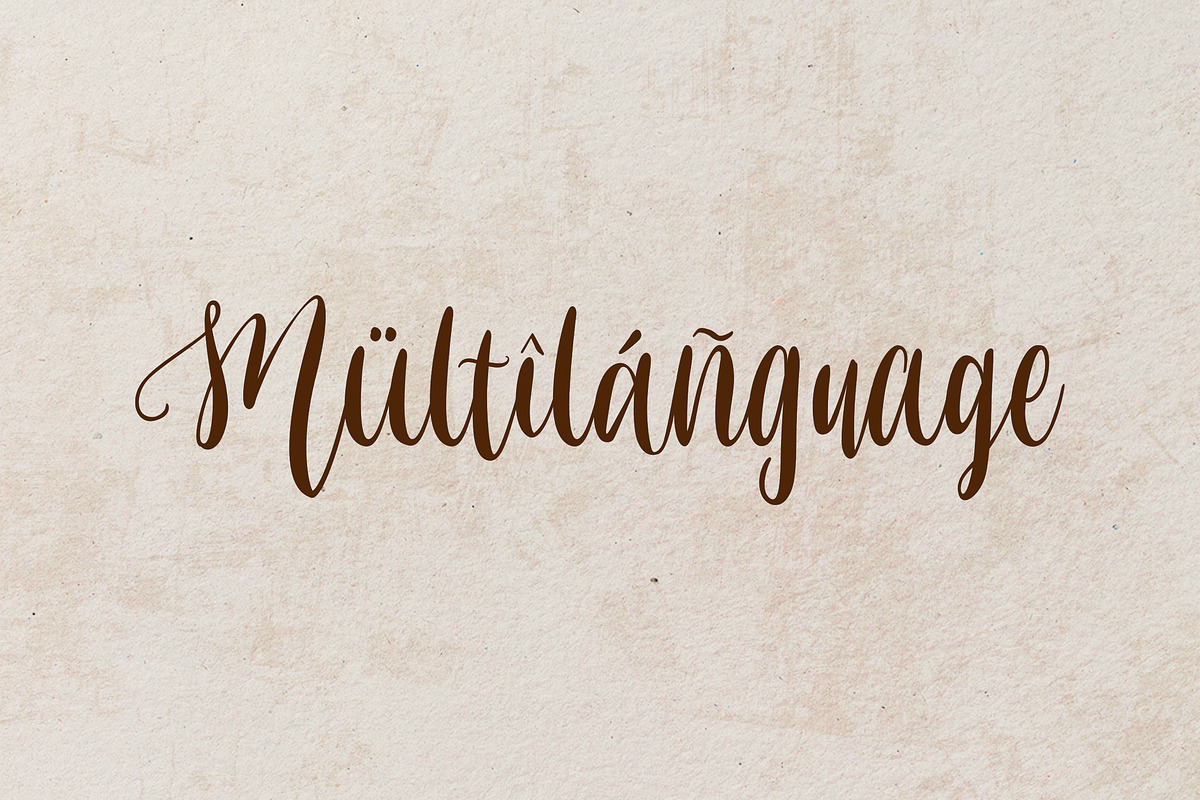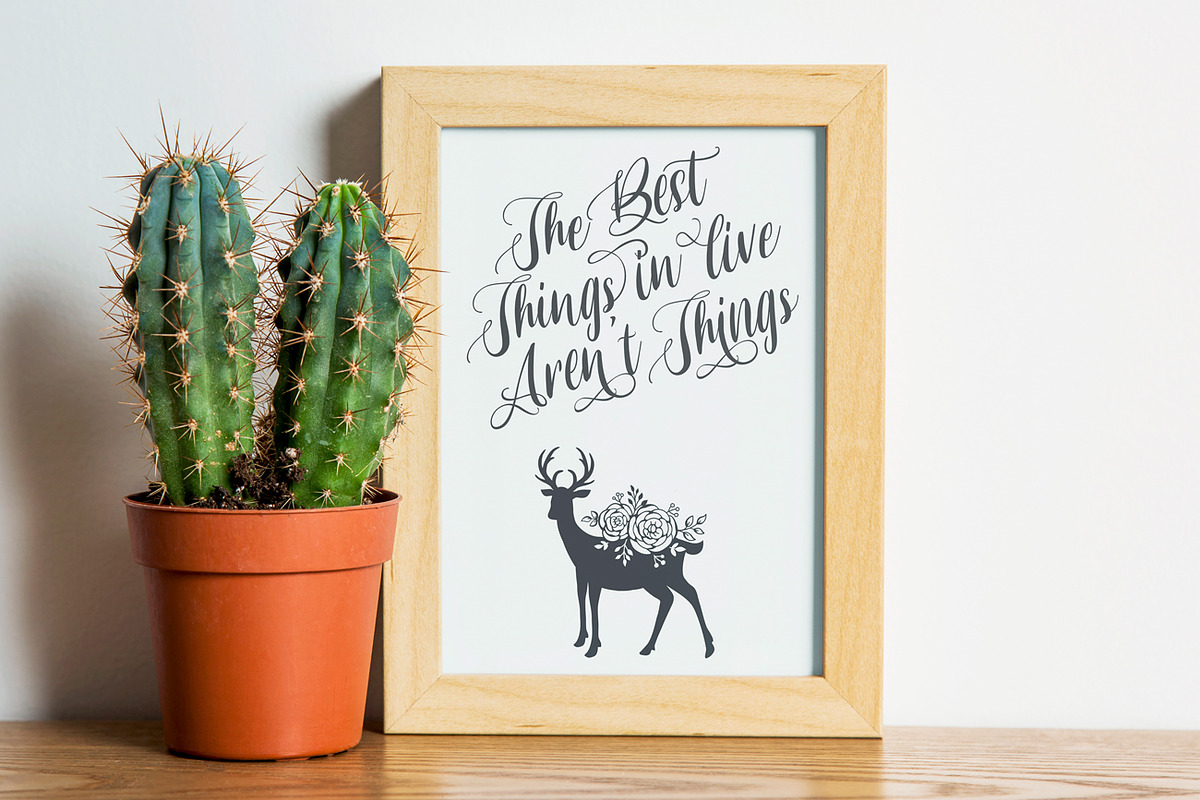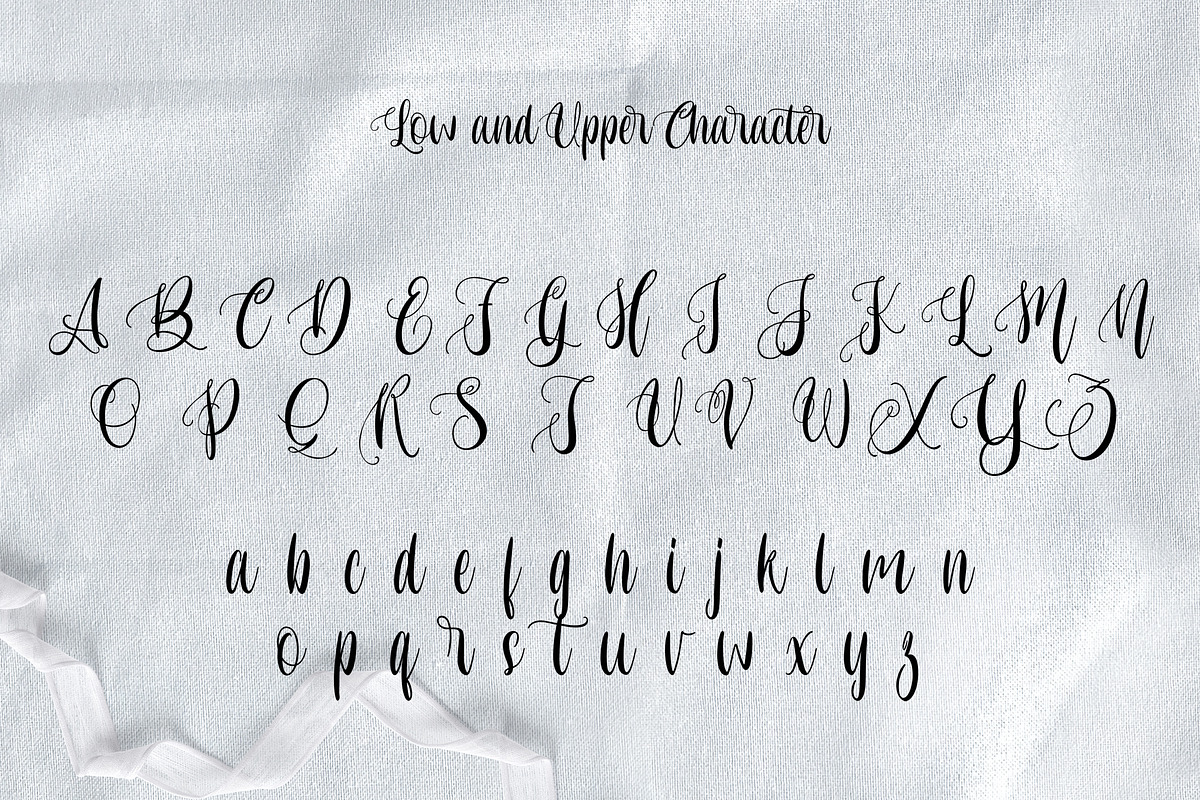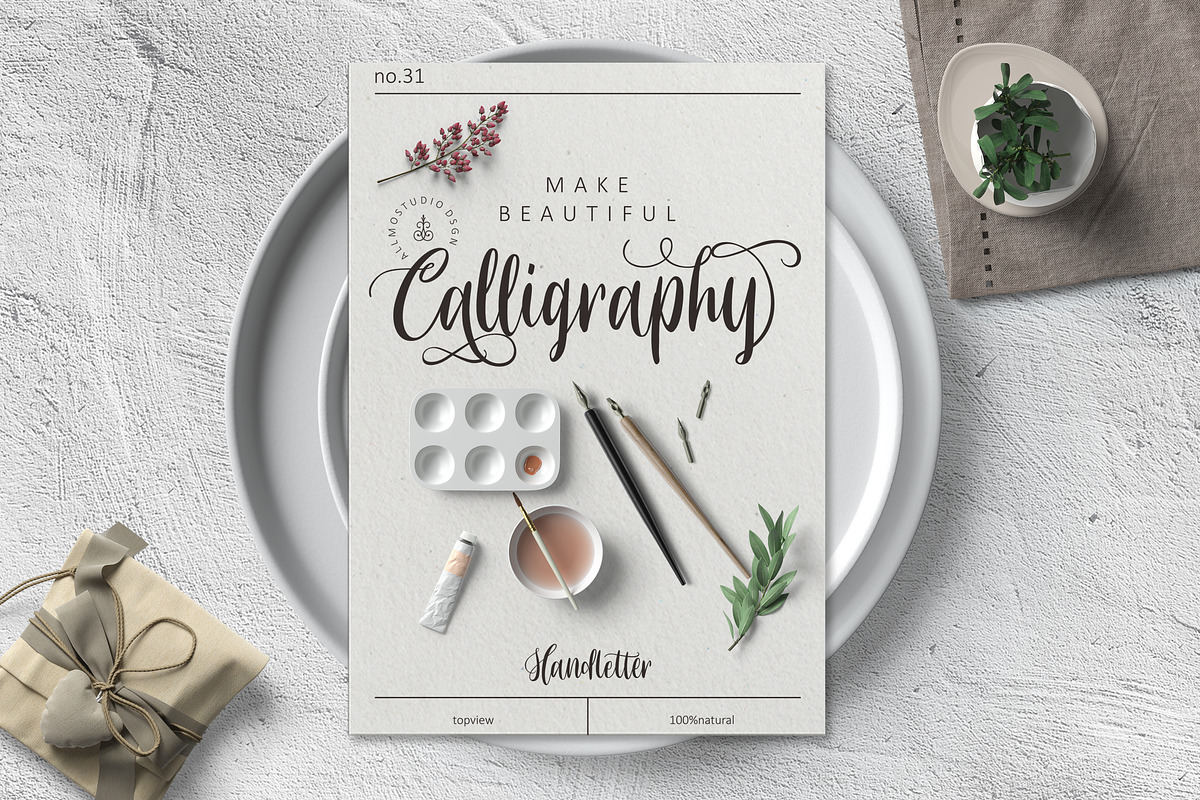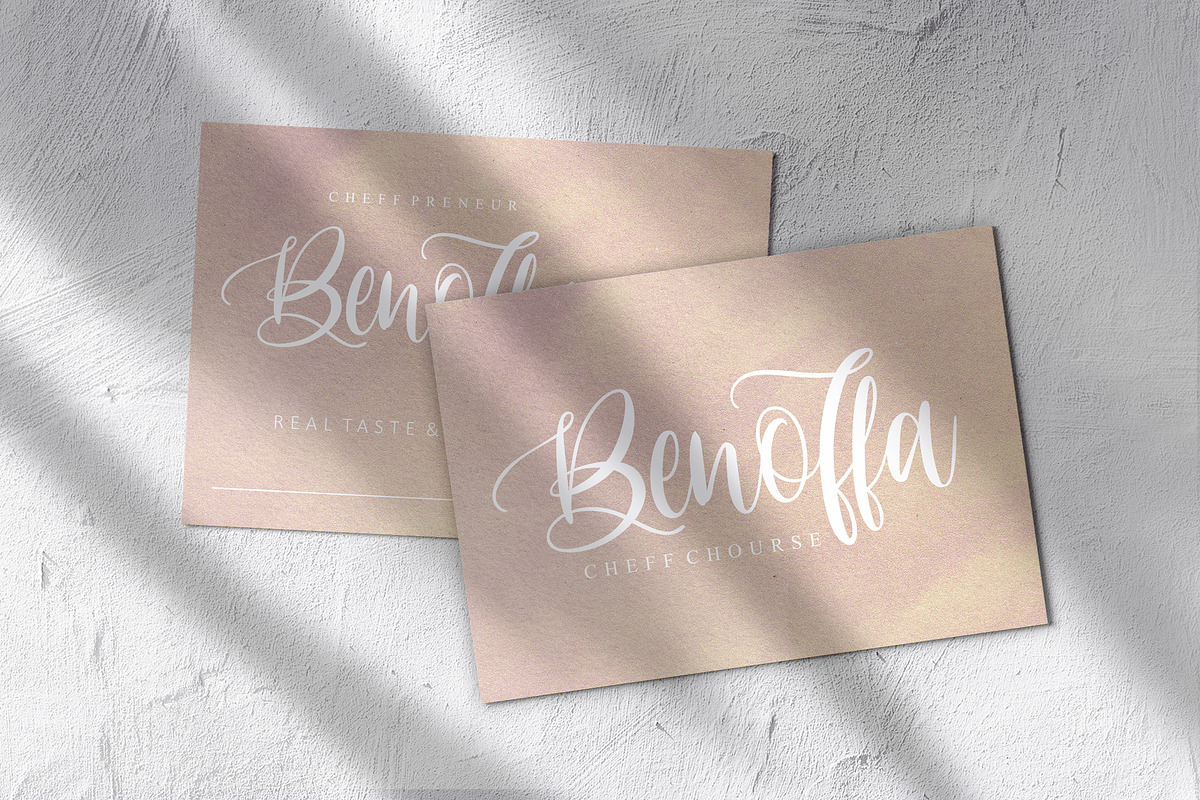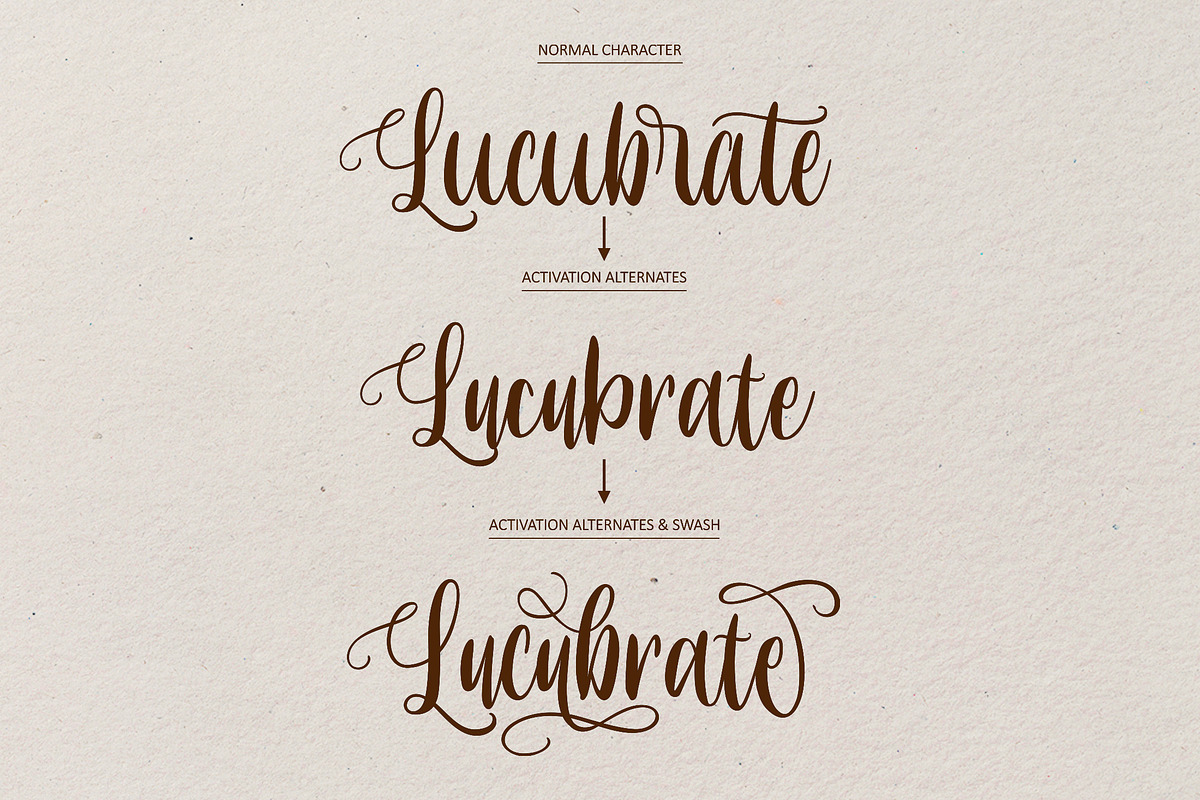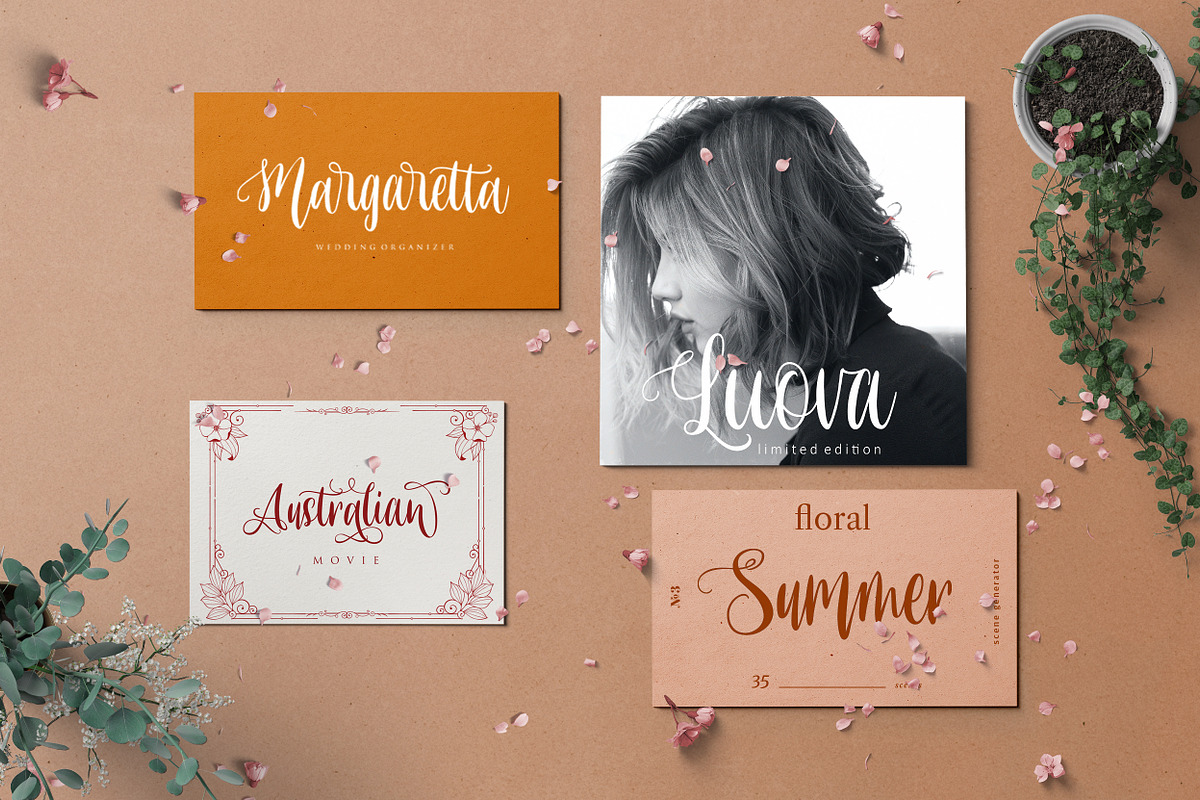
Rosemhary Font
Hello font lover !!! I'm back with the Rosemhary font which adopts from the Latin callygraphy style and comes with uppercase, lowercase, numerals, punctuations and so many variations on each characters include opentype alternates. This font is great for your creative project such as logos, posters, invitations cards, packaging, badges, logotype, apparel design and Label. But don't let we restrain your imagination of course.
Why Rosemhary Font is worth a look
Rosemhary Font by Allmostudio fits naturally into Branding, posters, packaging, typography.